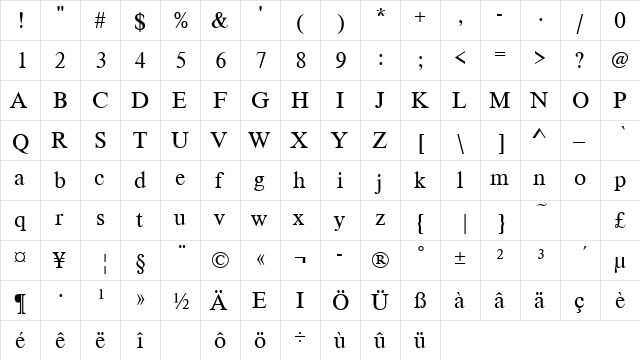
GreekTimesSSK Regular
Design Context for GreekTimesSSK Typeface
GreekTimesSSK offers clean, dependable letterforms without strong stylistic allegiance, making it a practical choice for designers who need flexibility.
Pro Tip: Use GreekTimesSSK in both headline and body roles to test its range before committing to a single application.